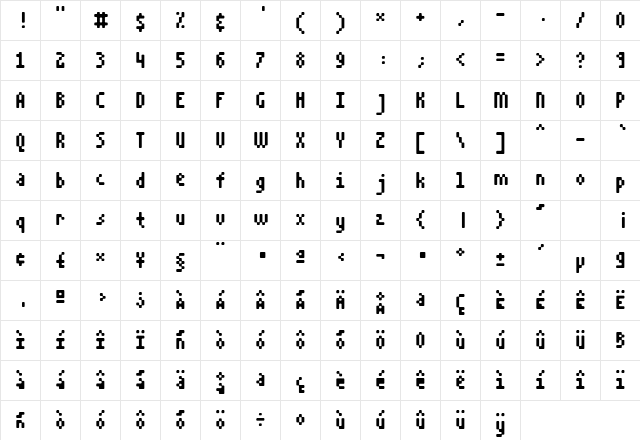
Lithium Regular
Design Context for Lithium Typeface
Lithium is a composed and adaptable typeface that performs quietly and consistently across a wide range of design contexts.
Pro Tip: Pair Lithium with a font of contrasting weight or personality to build a more expressive typographic hierarchy.